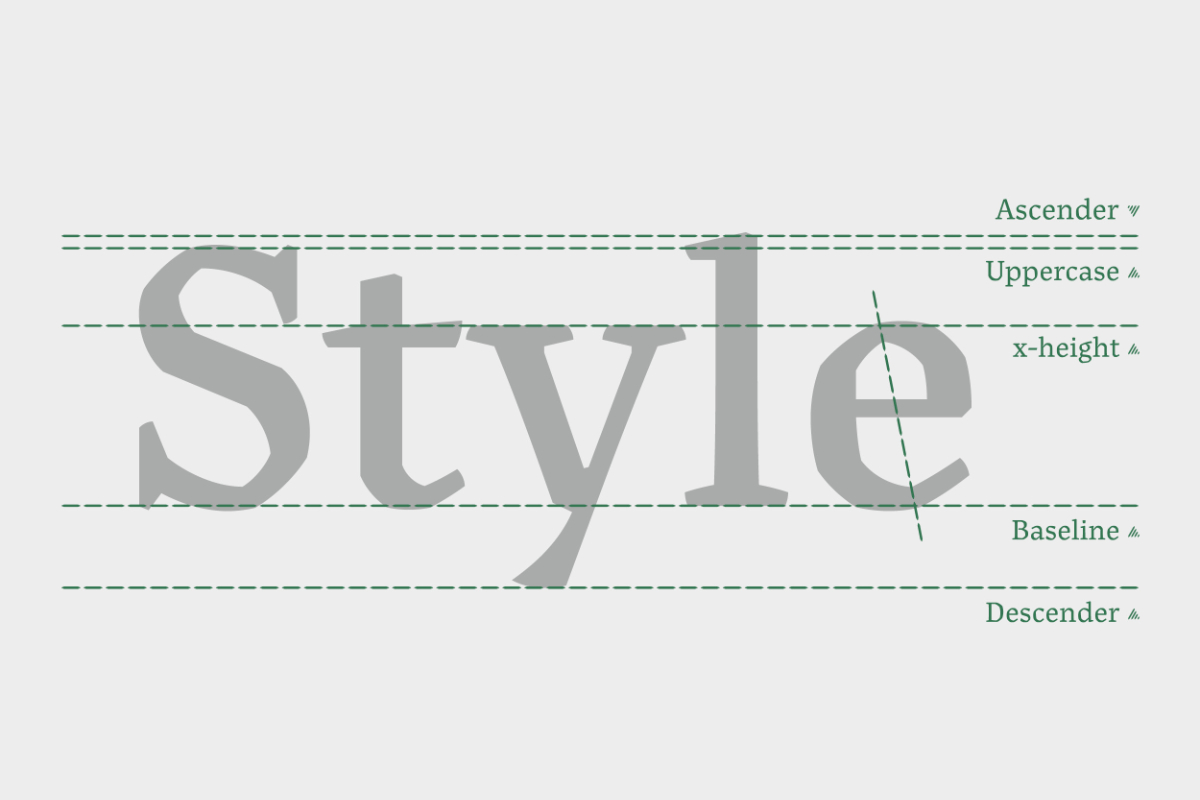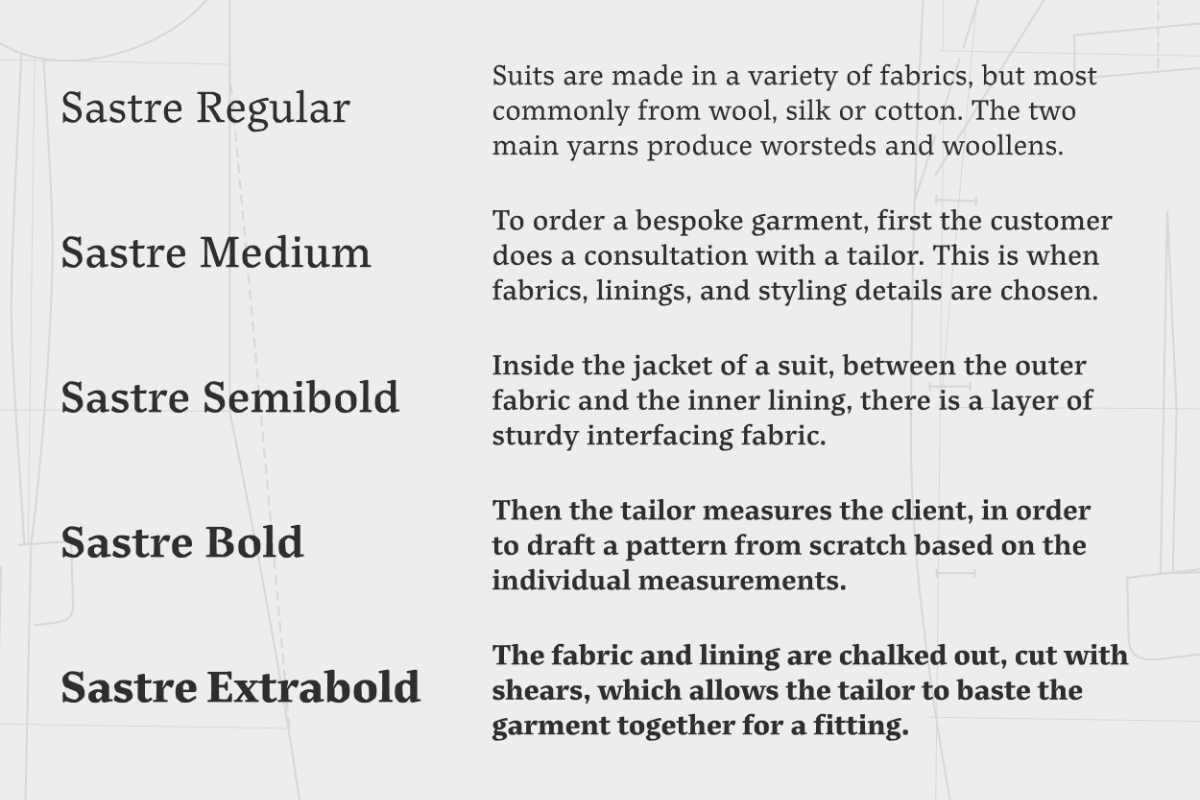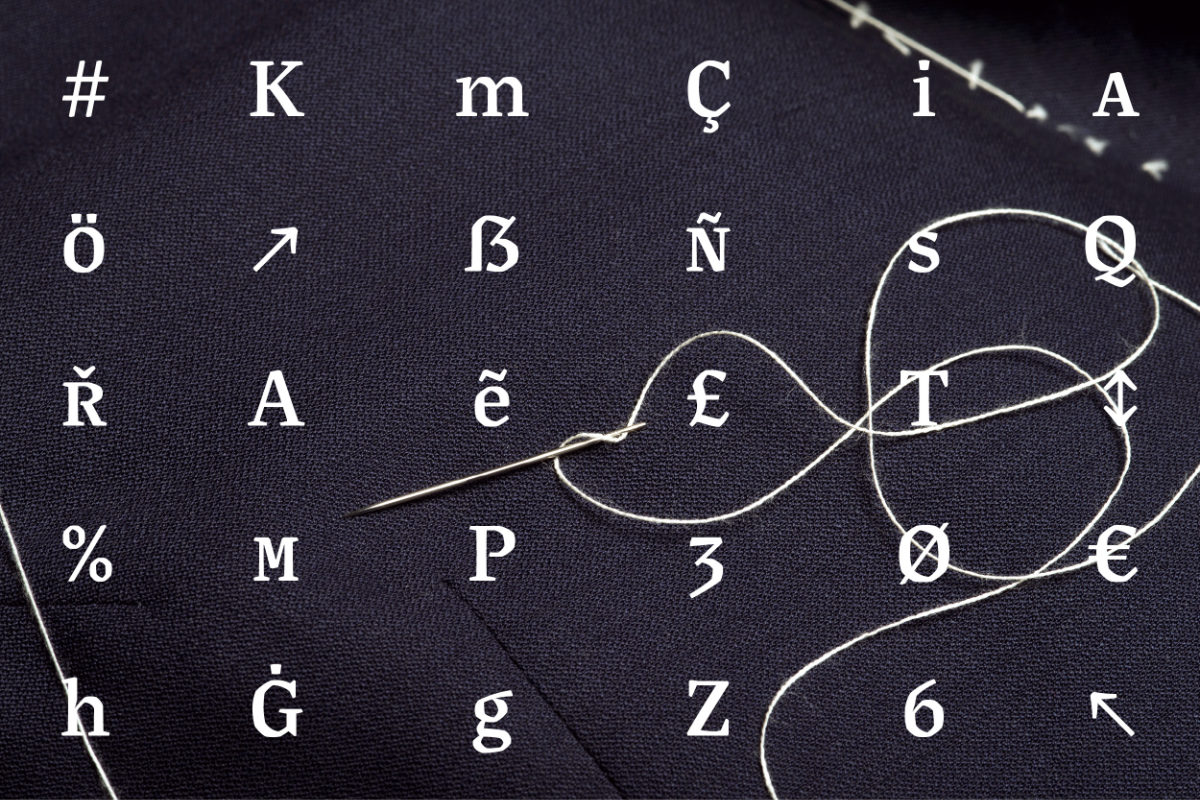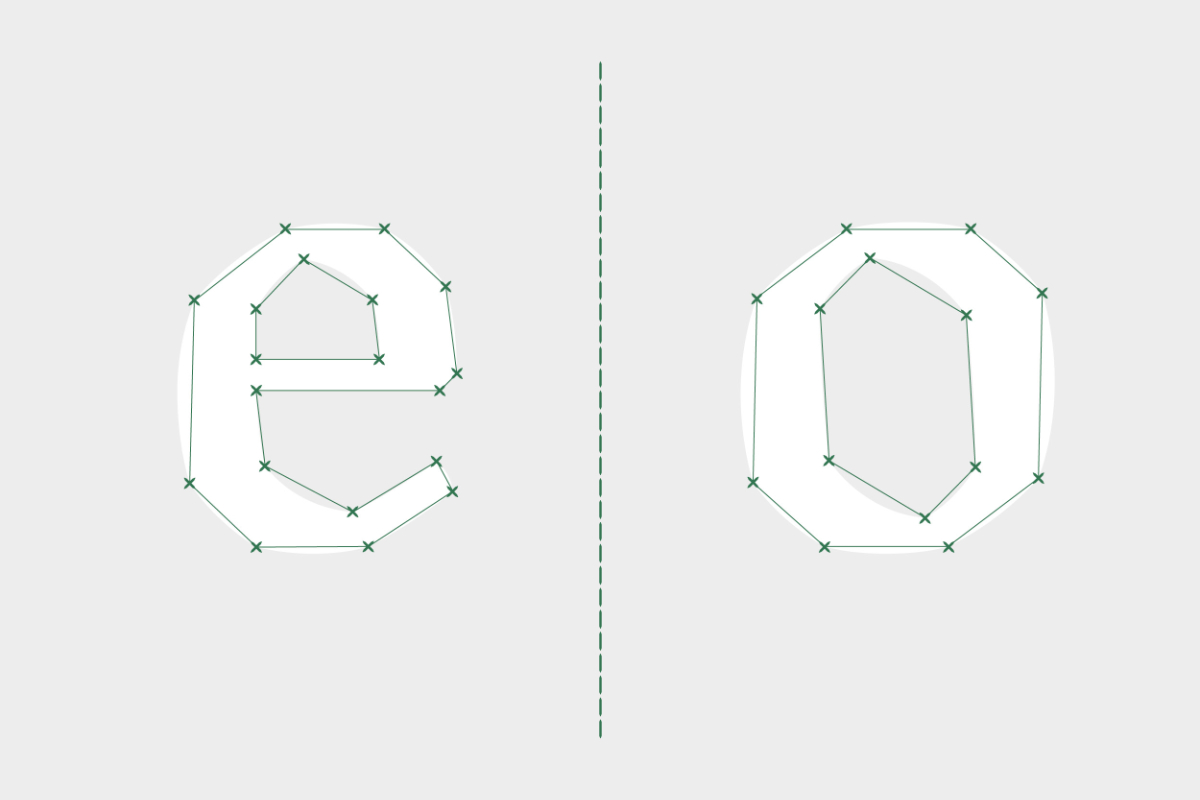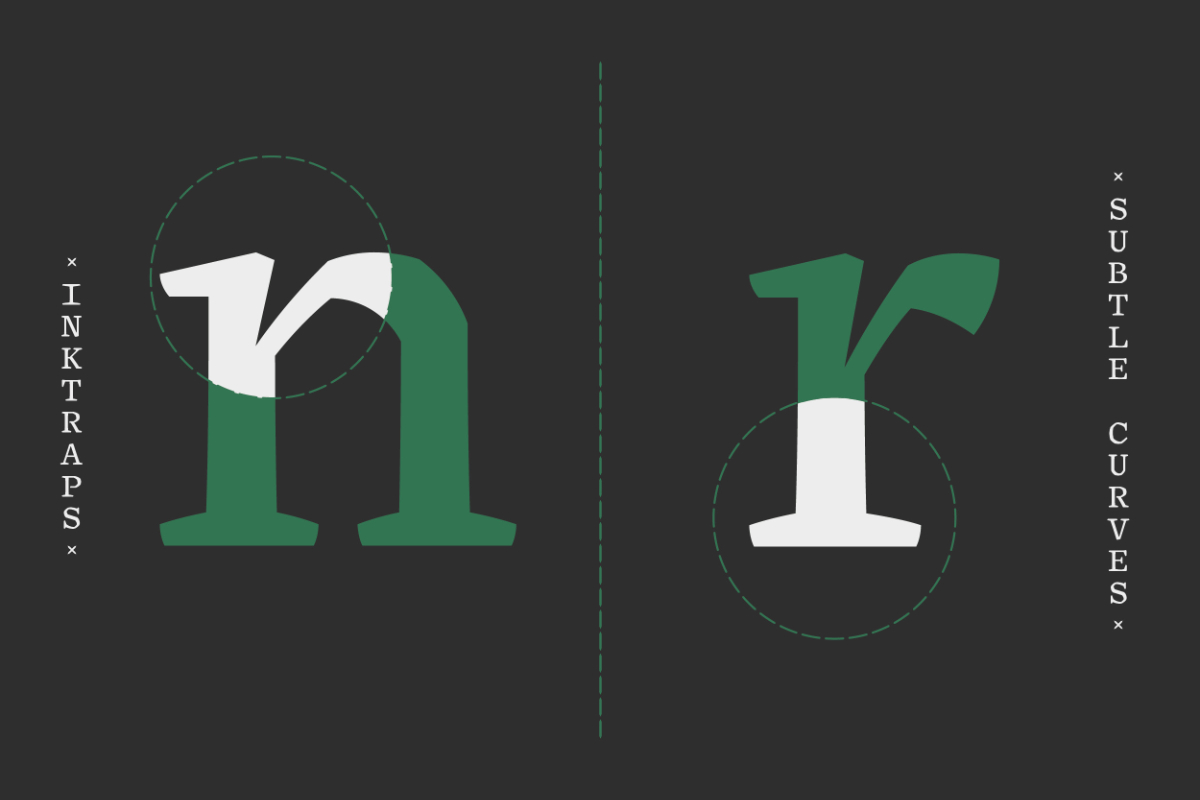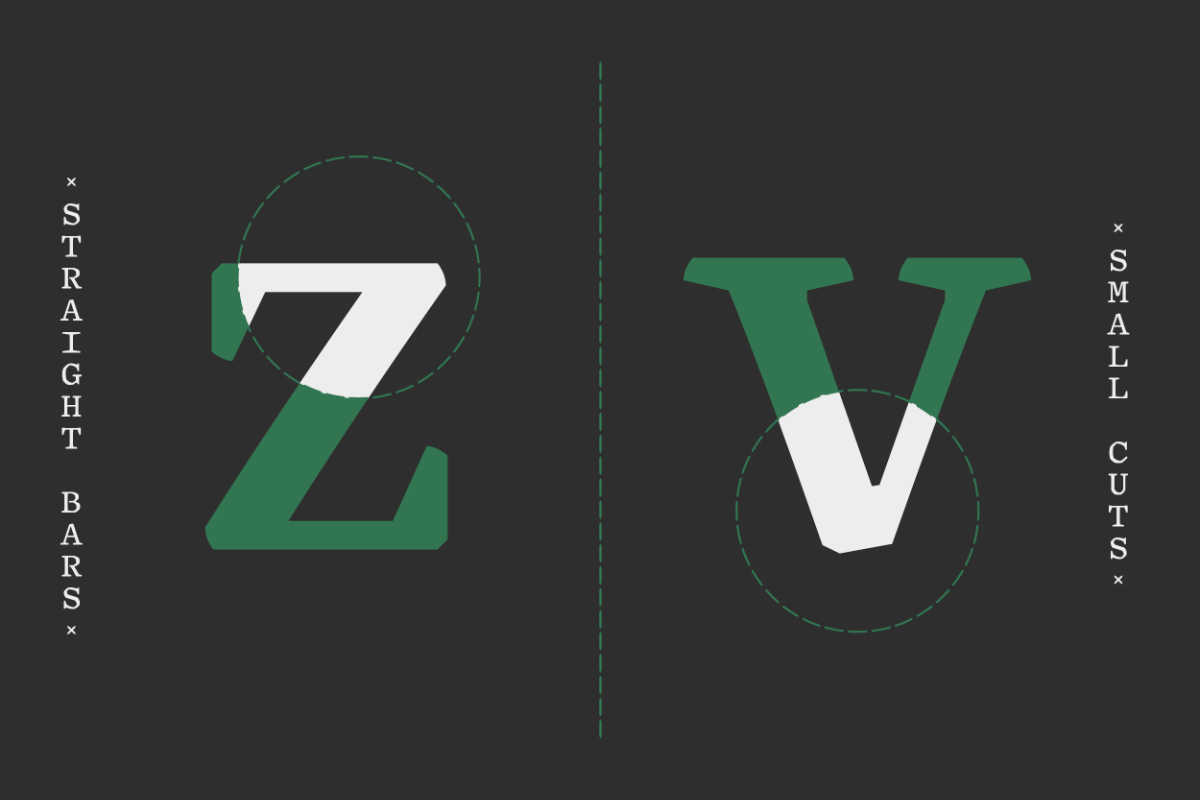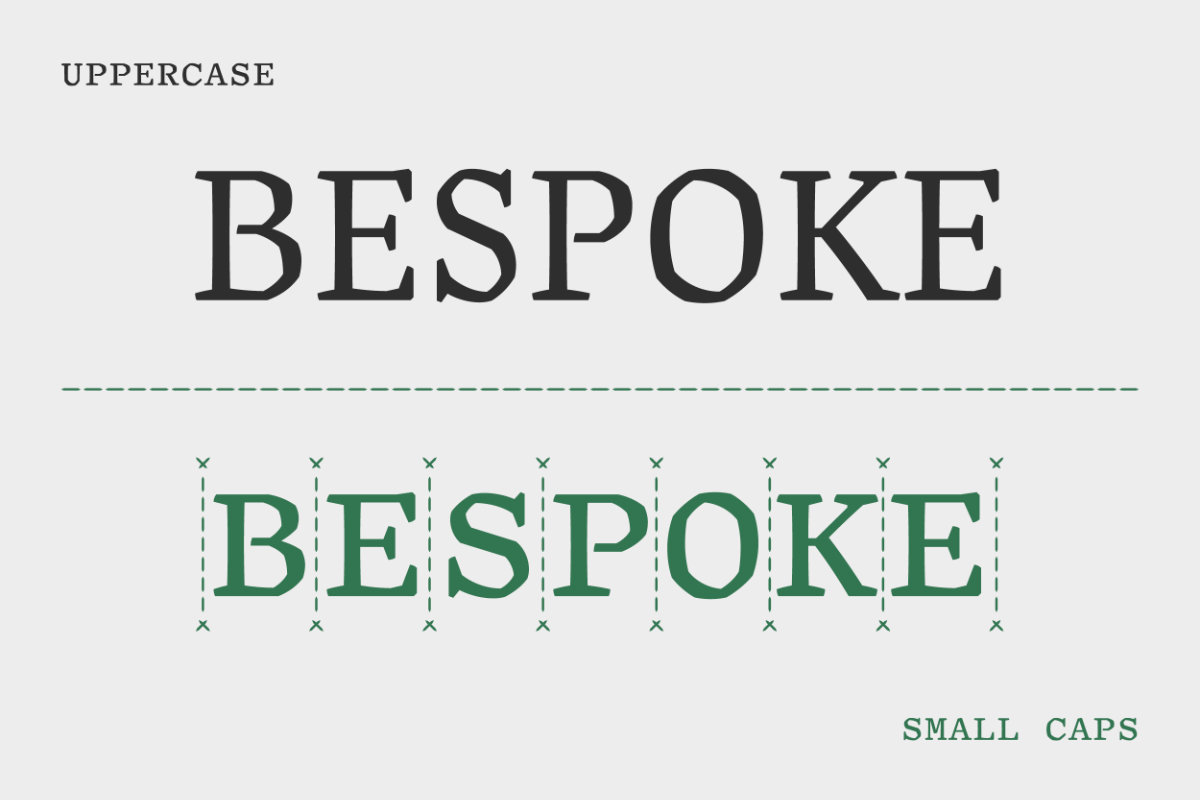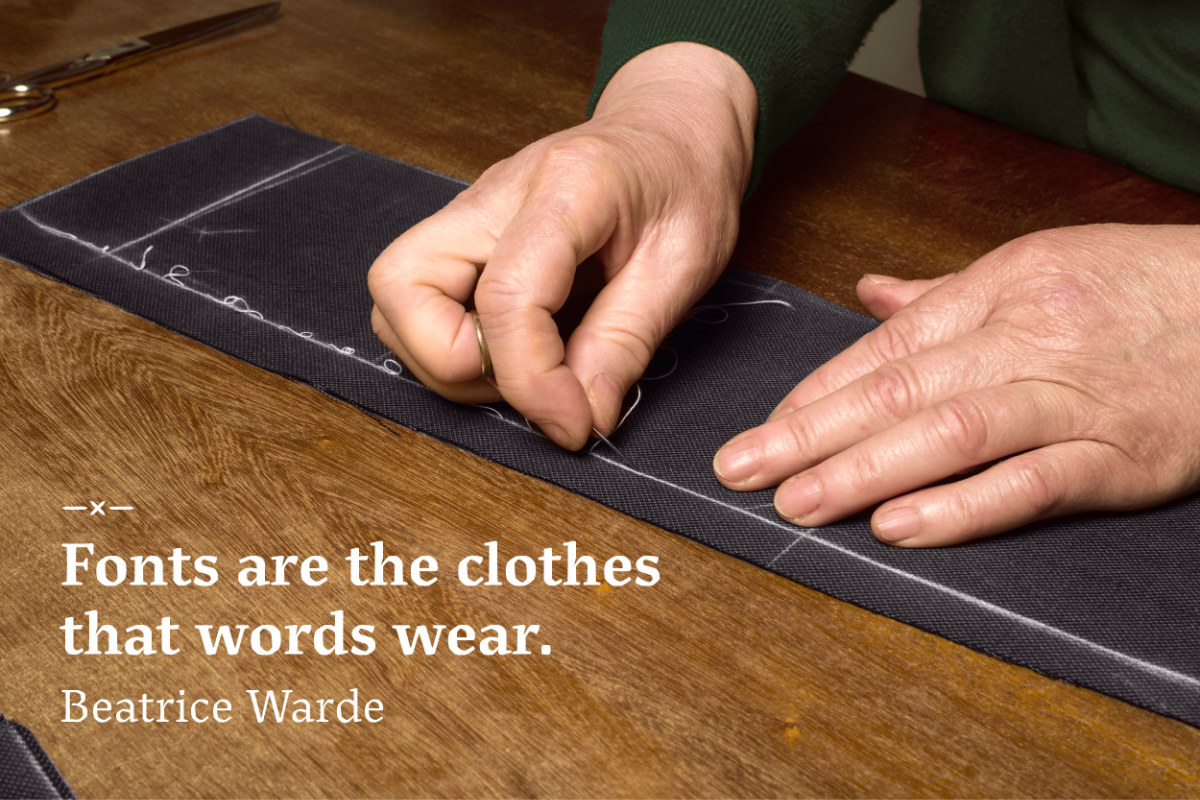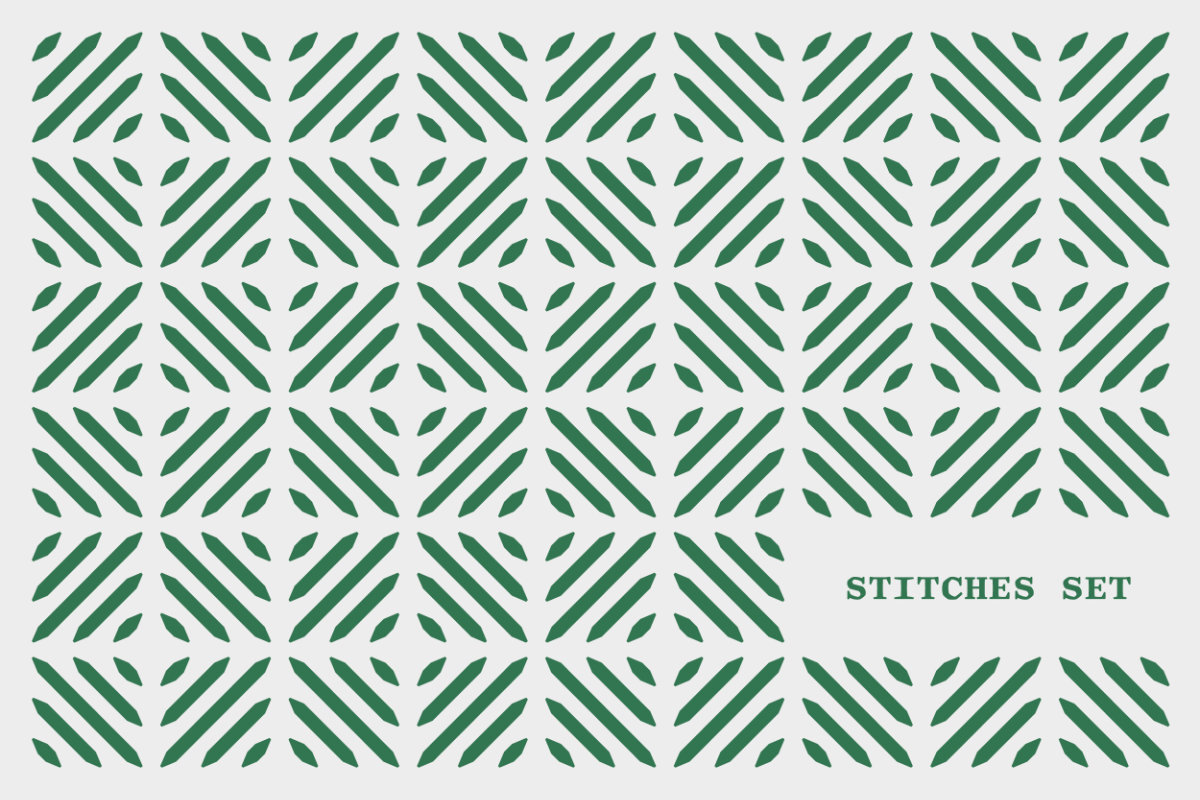
The latest addition to NM type font library brings a refreshing contribution to the typographic landscape. Originally started as a student project at Reading University in 2014, Sastre is now making its first public debut. Created by Galician designer María Ramos, the text typeface is currently available in the upright version. Sastre includes five weights and a variable font. Future releases will include italic styles and display cuts.
The mix of influences in the design enhances a unique personality. Unexpected connections emerge from María’s family memories and the tailor workshop their parents have run for over 40 years. She is not the first to link clothing and bespoke garments with type design. Beatrice Warde described fonts like “the clothes that words wear”, while Adrian Frutiger noted, “the work of a type designer is just like that of a dressmaker: clothing the naked, constant human form”.
Ramos took her exploration further by not only recognising Sastre’s broken structure in the drawings made by her father on fabric, but also finding inspiration from natural patterns, like the surface texture of a tree leaf and the intricate work of skilled weavers: spider webs.
The set features special characters, a delight for designers and creatives. There is a collection of stitches that perform as geometric shapes to create patterns and borders. The small caps, built as a monospaced set, add another voice to the type family.
Sastre
Designer: María Ramos